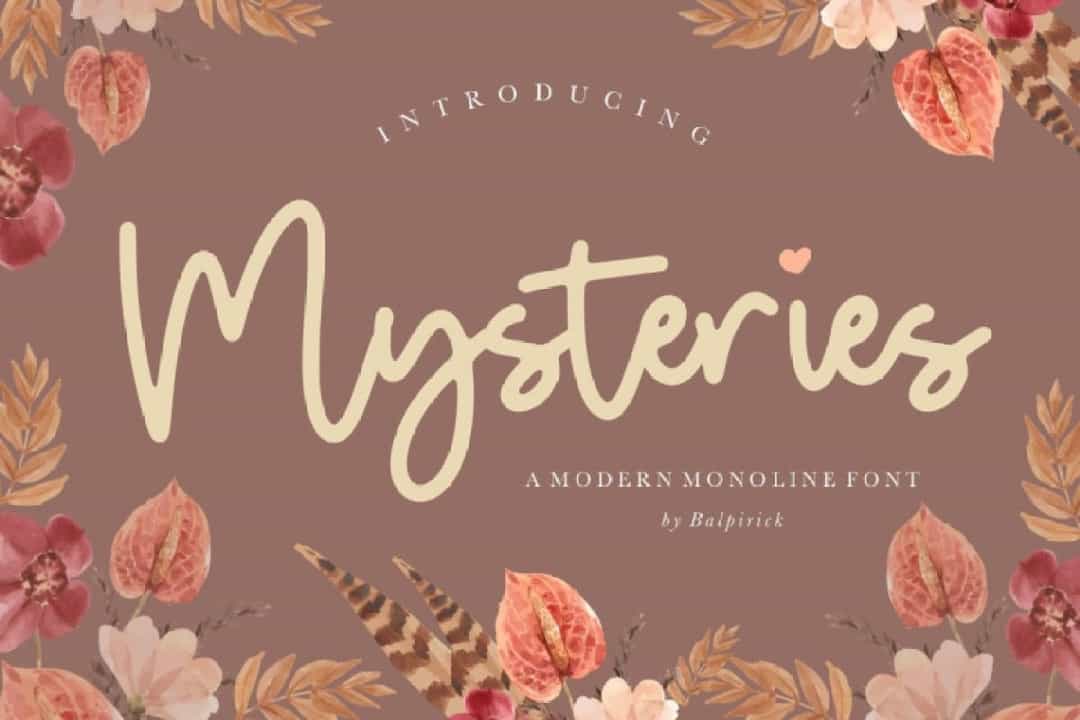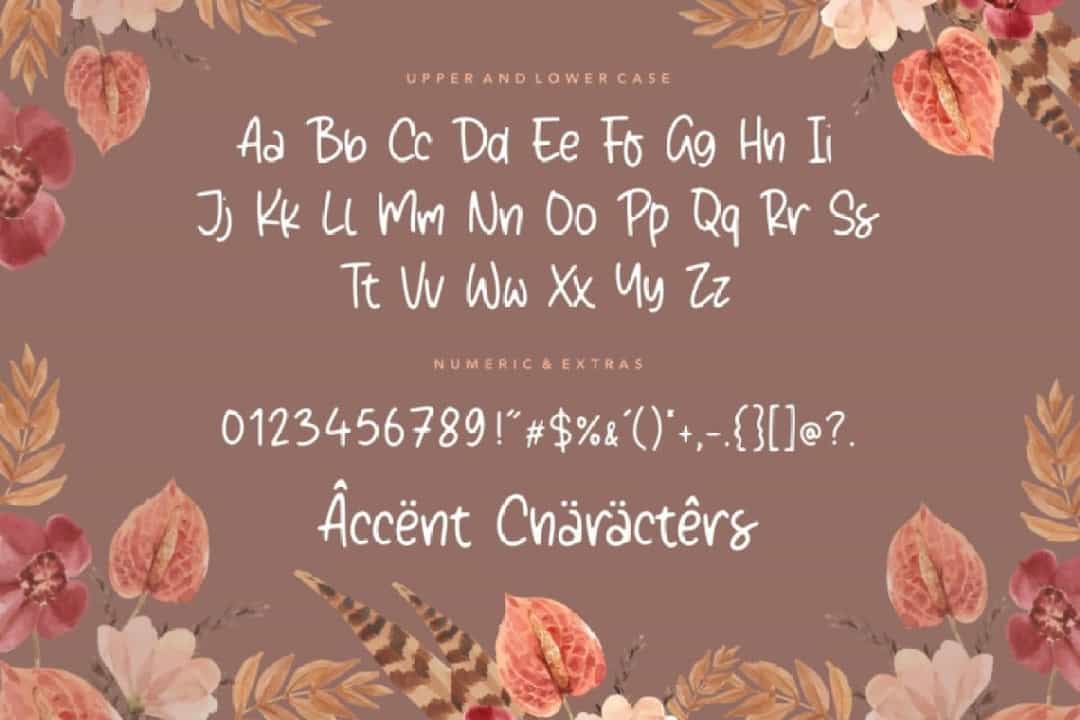
Discover Mysteries Font, part of the Handwritten Script Monoline collection—a versatile and unique font perfect for adding a personal touch to your projects. Download it for free and enjoy crafting designs with style, from invitations to social media posts. This font is available exclusively for personal use, giving you the freedom to create without limits. Unlock your creativity with Mysteries Font today!
Mysteries is a modern, monoline handwritten font that includes uppercase numbers, lowercase punctuation marks and various characters; uppercase numerals, lowercase punctuation marks and various options for each character including multilingual options.